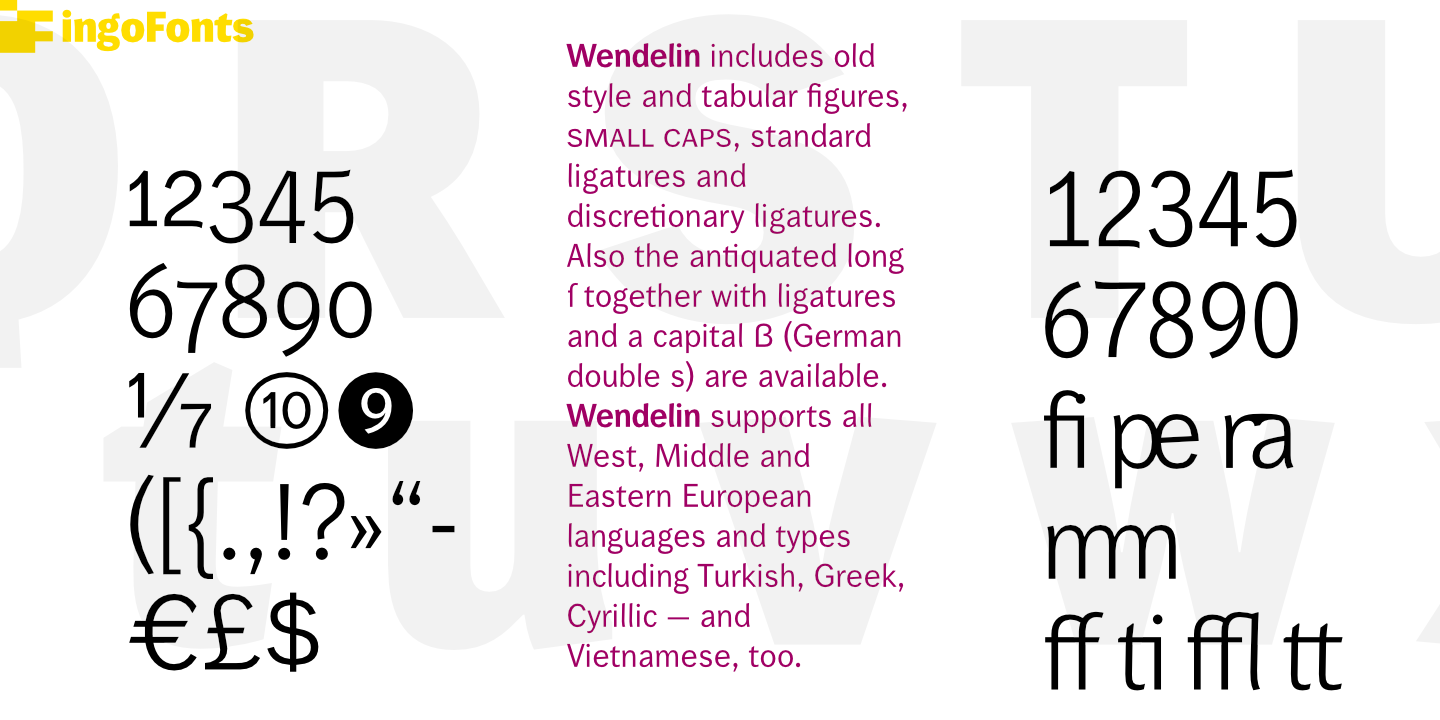
A traditional sans serif — with that certain something — very legible
- slanted stems of M
- l with a slightly flared “foot”
- slightly bowed stems similar to serifs on the lower case characters
- slanted endings in upright fonts
- rectangular endings in italic fonts on horizontal stems
- small caps
Wendelin Pro is a classic sans serif in the style of the early “grotesque fonts” from the 19th century. But its characters have some very individual details which are not found in any historical model. The slightly bowed stroke endings which nearly look like serifs are characteristic of Wendelin and lend greater legibility to the font.
The italic weights of Wendelin are based on true italics with clearly rounder detail forms and not just slanted variations of the upright form, even though a and g retain the basic form of the upright version. Also, the italic f has a descender, the e is round, and k is open and rounder as well as r.
Wendelin Pro supports all European languages including Turkish, Greek, Cyrillic plus Vietnamese.
Several OpenType features provide access to historical forms (long s along with it’s ligatures), standard ligatures, discretionary ligatures, small caps, alternative numerals (fractions, inferior and superior numbers, circled numbers, negative circled numbers.) A set of arrows is included with Wendelin Pro, too.
Wendelin Pro features a wide range of eight weights from Thin to ExtraBold and the appropriate italics.